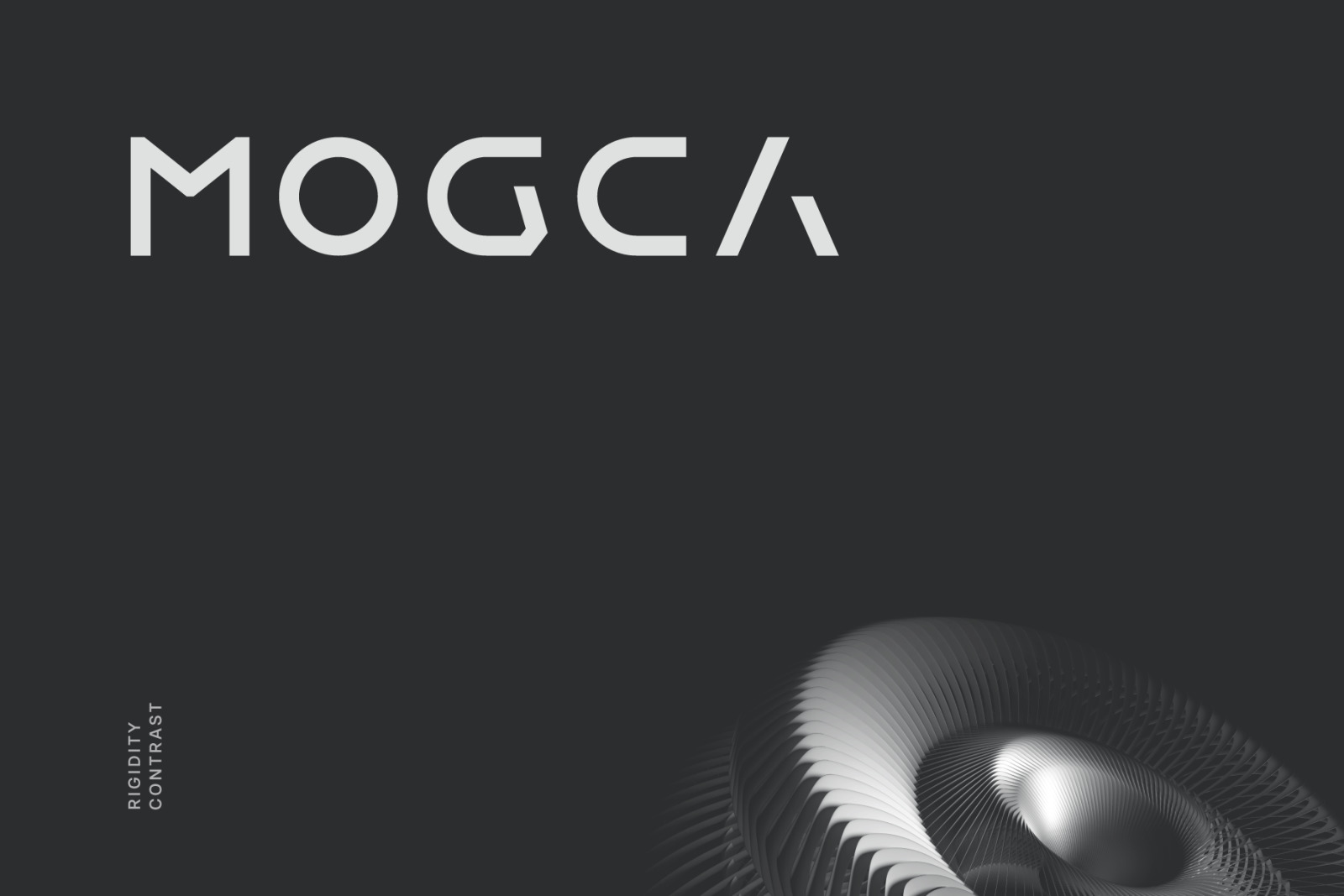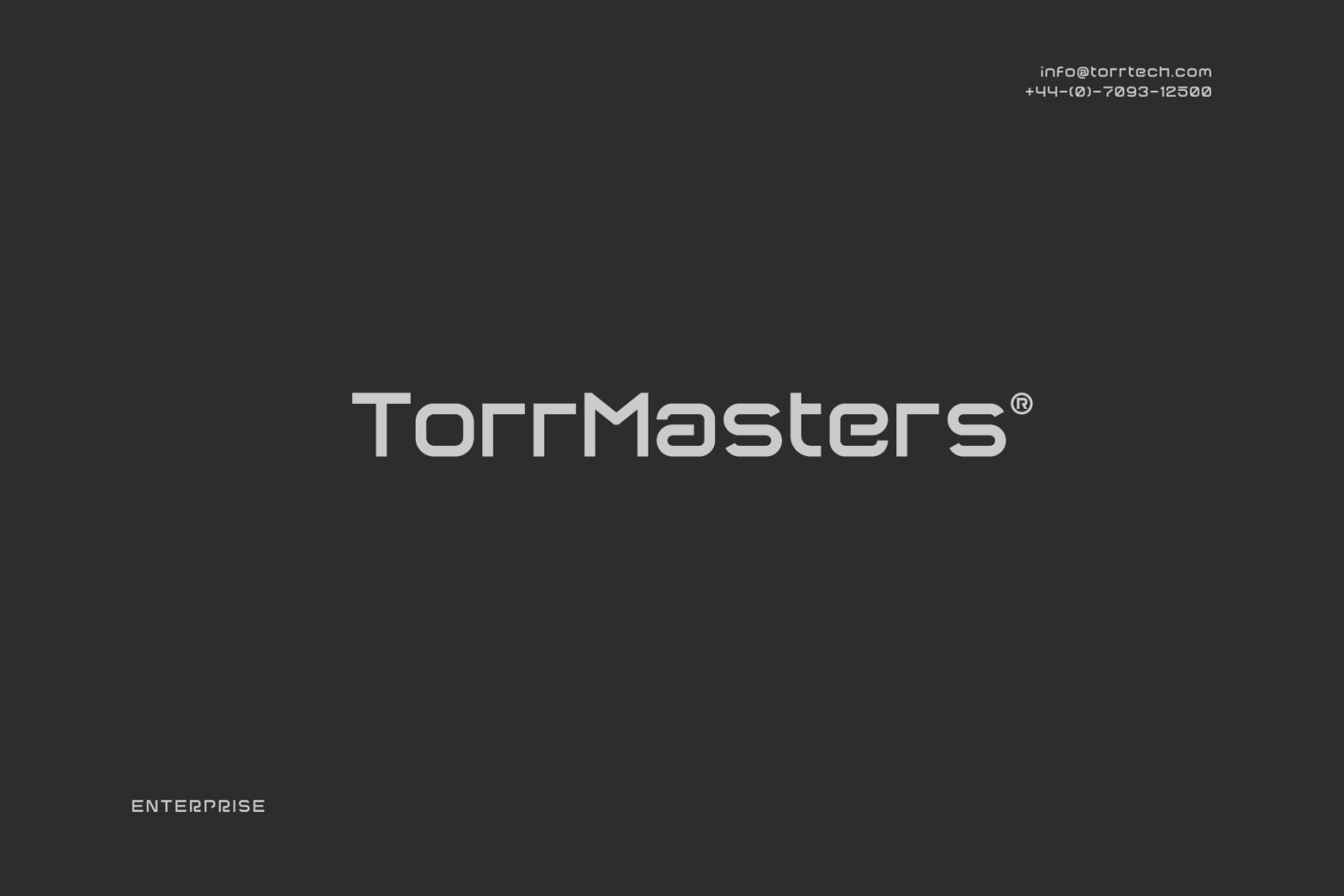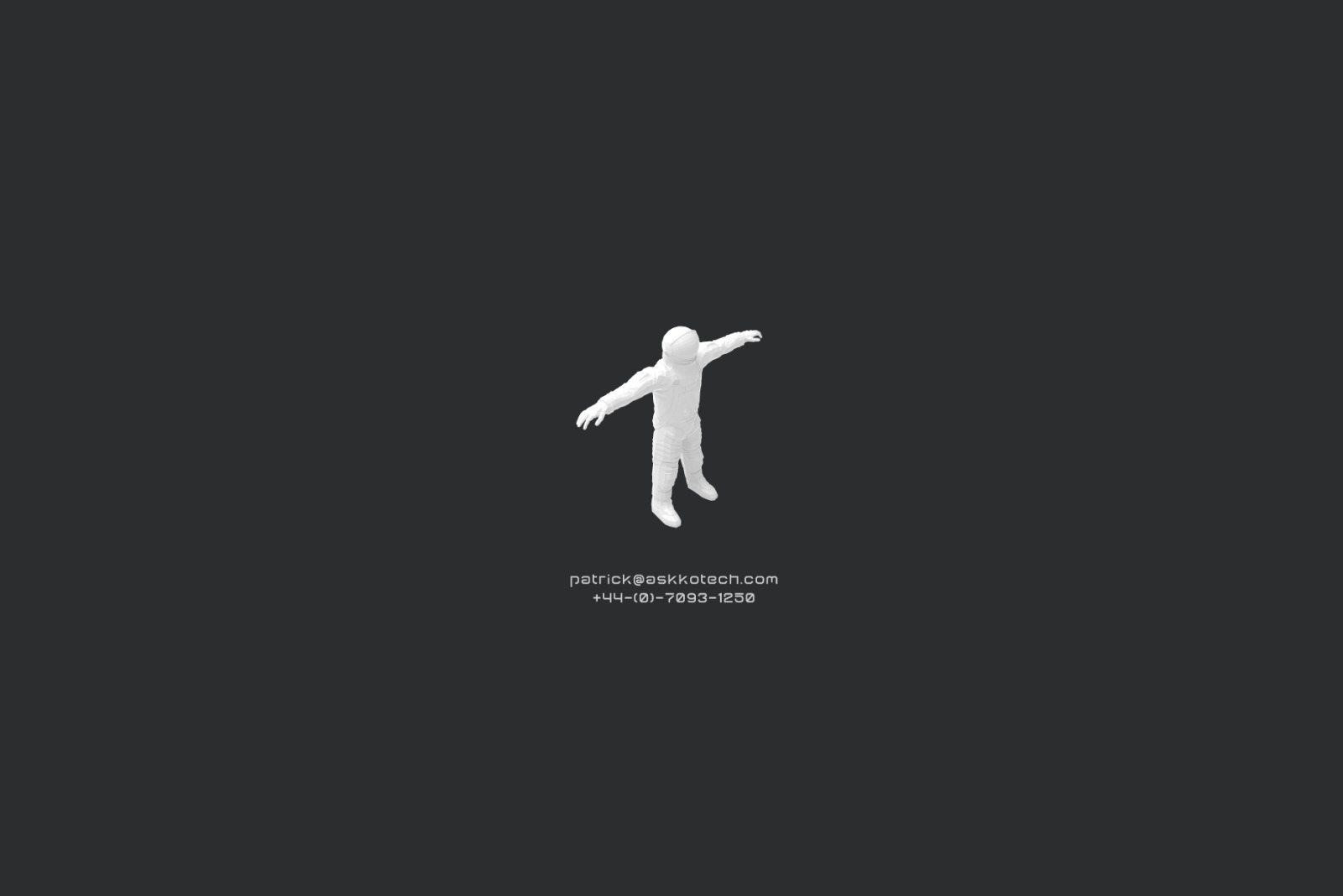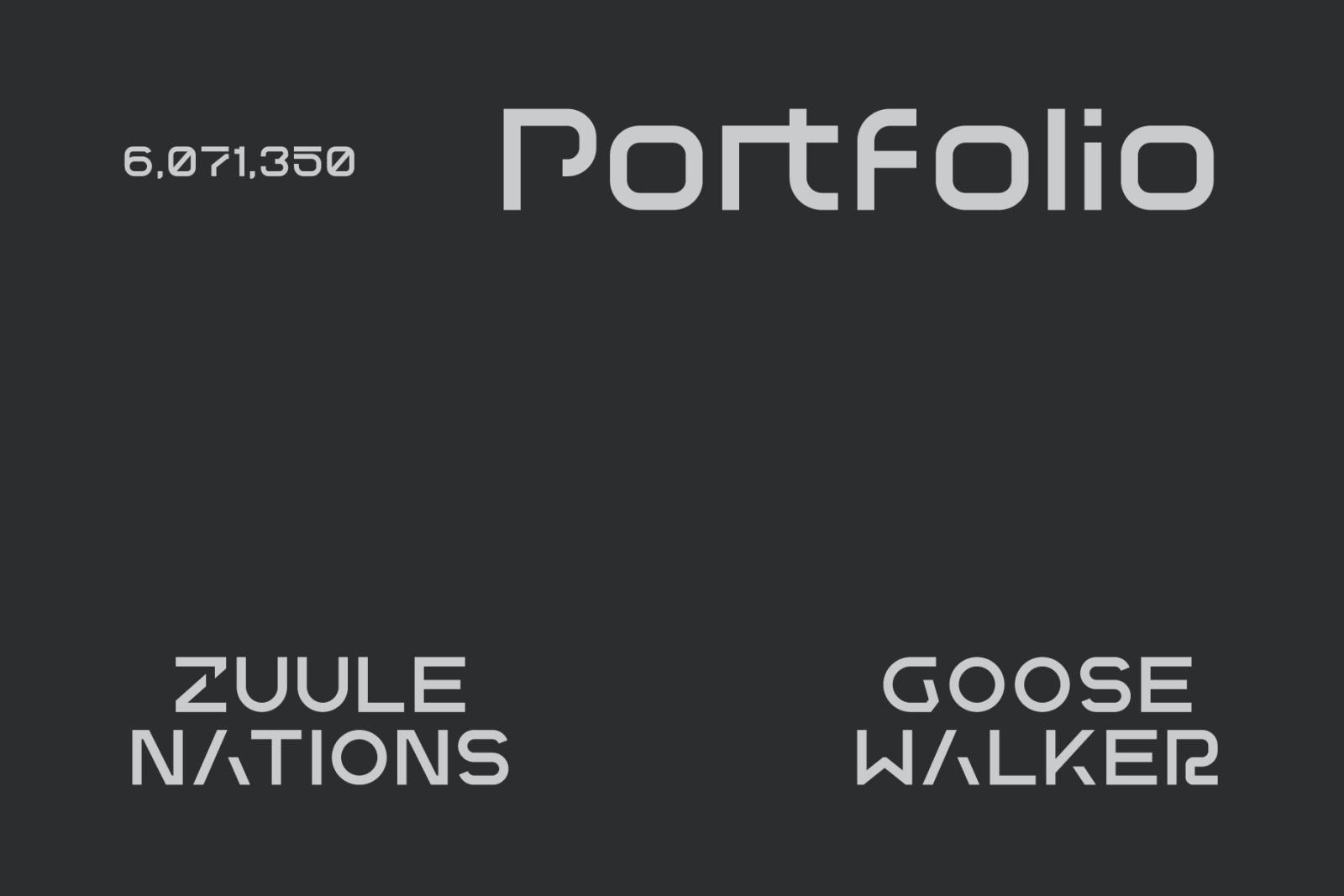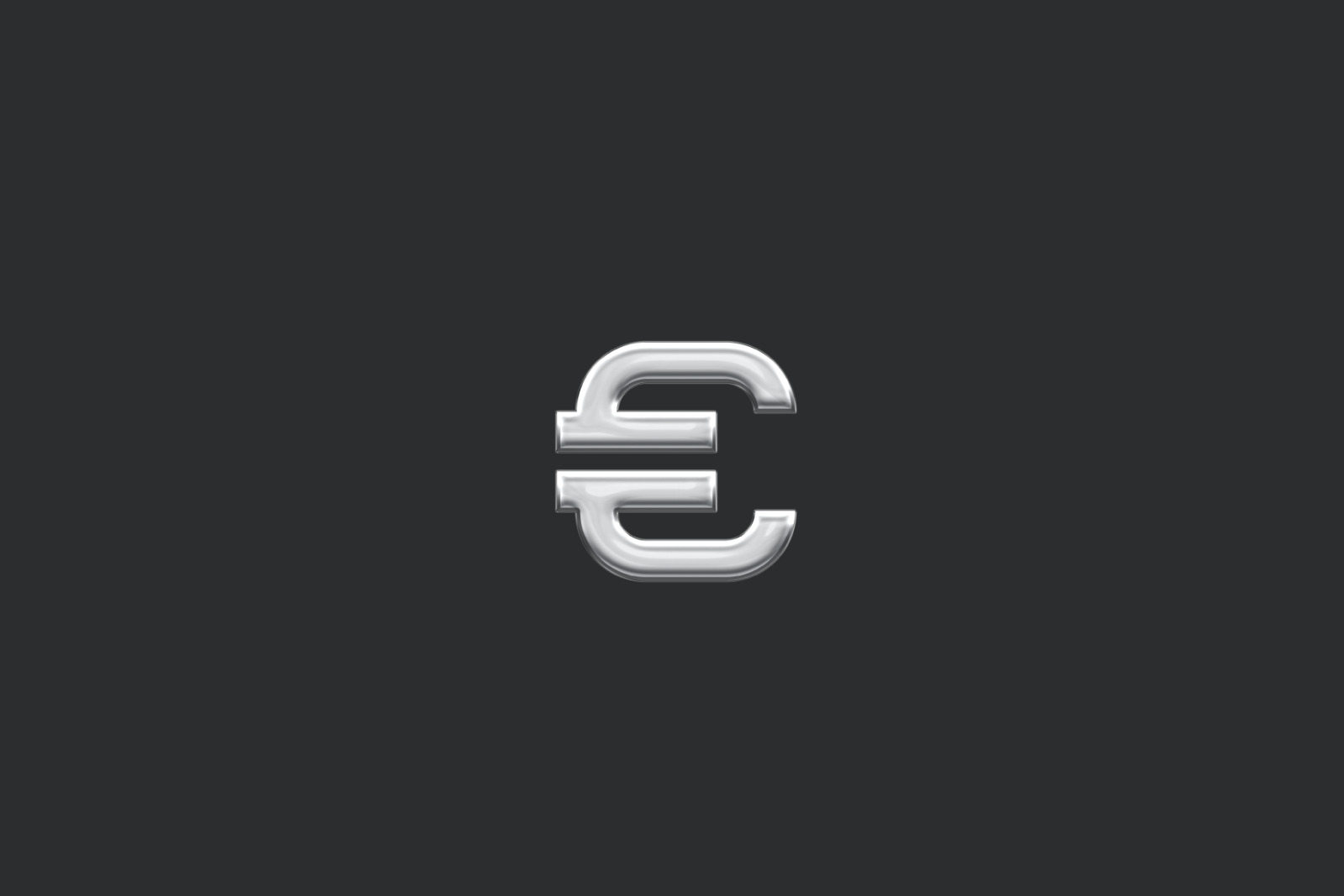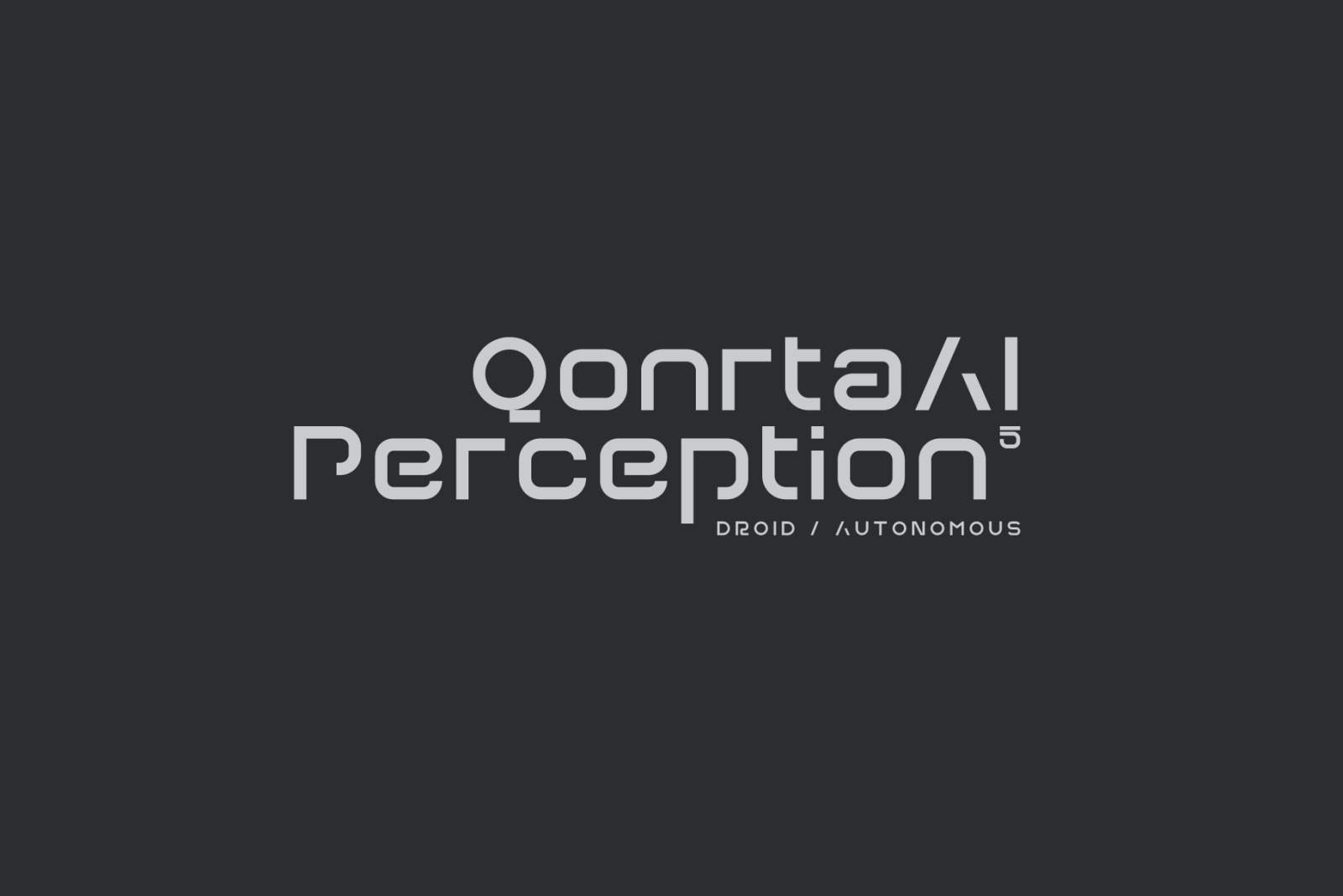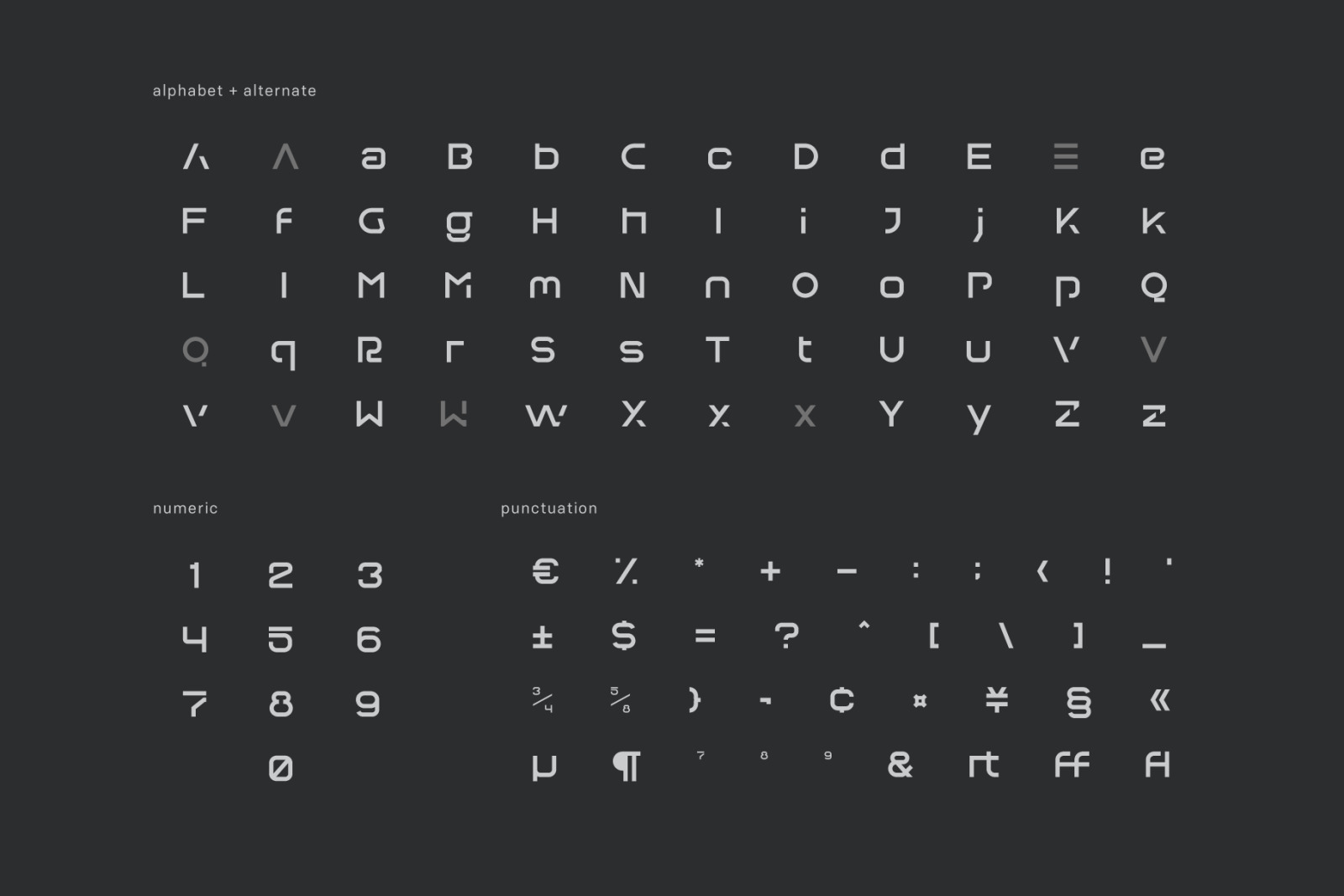
Mogca Font
Mogca is a rigidity contrast restraint tech sans apt for headline, editorial, branding, packaging, printed materials and typographic applications. 150+ glyphs with ligatures and fractions provided in opentype .otf and .woff format.